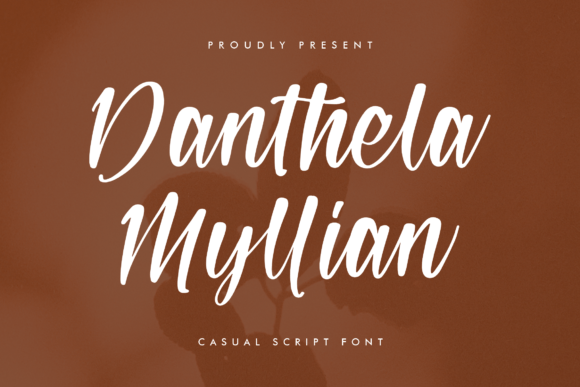
Journey into a world of elegance and charm with Danthela Myllian Font, a stunning script font that will transform your creative visions into captivating masterpieces. Designed with meticulous precision by Letterfabric, Danthela Myllian embodies the essence of grace and sophistication, making it the perfect choice for a wide range of design projects.
Indulge in the beauty of flowing lines, delicate curves, and enchanting swashes that bring a touch of magic to your words. Whether you're crafting logos, branding projects, homeware designs, or product packaging, Danthela Myllian adds a captivating charm that speaks volumes.
Step into the realm of quotes and let Danthela Myllian elevate them to new heights. Its enchanting strokes effortlessly transform ordinary words into works of art, making your messages resonate with emotional depth and elegance. Your quotes will come alive, leaving an unforgettable mark on your audience.
Danthela Myllian's versatility knows no bounds. Whether you're adorning mugs, posters, shopping bags, or t-shirts, this font will seamlessly blend with your design, adding a touch of sophistication and charm. Book covers, name cards, invitation cards, and greeting cards will exude an air of elegance that will leave a lasting impression.
Unleash your creativity in the world of photography and watermarking, as Danthela Myllian effortlessly enhances your images with a touch of whimsy and wonder. Special events will come to life with the enchanting allure that Danthela Myllian brings, creating an ambiance of elegance and unforgettable moments.
With Danthela Myllian, your designs will transcend the ordinary and enter a realm of beauty and sophistication. Its timeless appeal will captivate your audience, leaving them spellbound by the magic of your creations. Embrace the allure of Danthela Myllian and embark on a creative journey that will leave a lasting impression on the world.